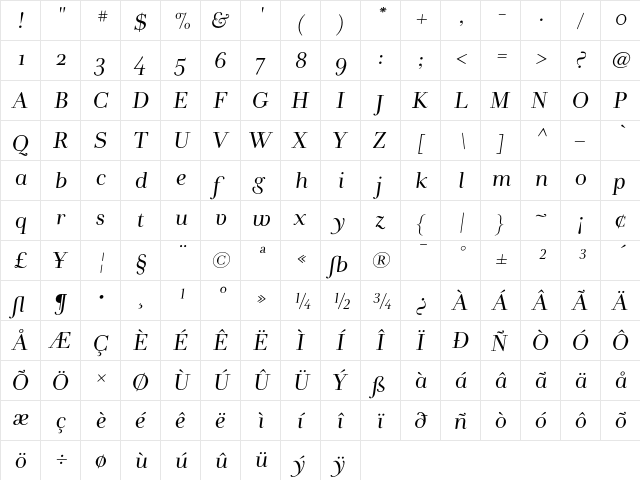
AndradeItalic Regular
Design Context for AndradeItalic Typeface
AndradeItalic takes a measured approach to typography — its balanced proportions and neutral character make it a reliable workhorse for both digital and print work. The dynamic lean of this cut emphasises speed and emphasis in any layout.
Pro Tip: Try AndradeItalic for annotation and caption copy alongside an upright companion — the contrast in angle creates a dynamic but ordered typographic system.